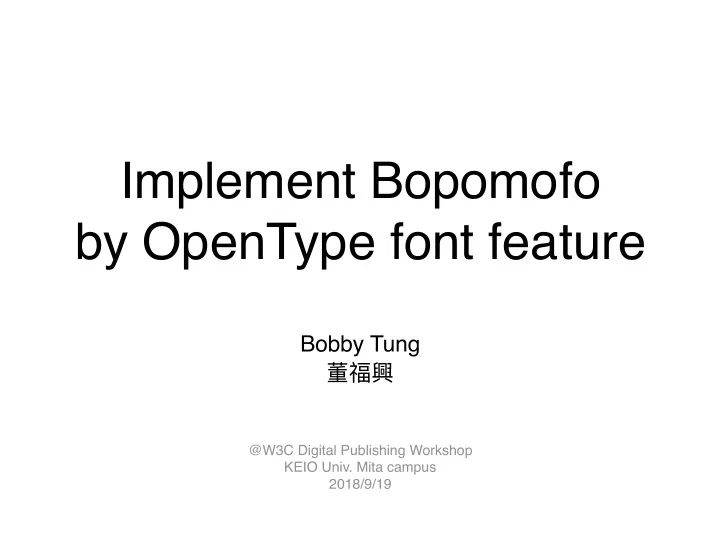
Implement Bopomofo by OpenType font feature
Bobby Tung 董福興
@W3C Digital Publishing Workshop KEIO Univ. Mita campus 2018/9/19
What is Bopomofo?
• A phonetic system for Mandarin education in Taiwan.
• Major input method for Han characters. →
Layout Rules for Bopomofo
• Bopomofo Ruby - implement and requirement
W3C ebooks and i18n workshop 2013/6/4
• "The Manual of The Phonetic Symbols
• f Mandarin Chinese"
Ministry of Education, Taiwan
HTML Markup
Light tone
<ruby>過<rt>˙ㄍㄨㄛ</rt></ruby>
2nd, 3rd, 4th tone marks <ruby>醒<rt>ㄒㄧㄥˇ</rt></ruby>
Tabular ruby markup model(Only support by Firefox)
<ruby><rb>你<rb>好<rb>嗎<rt>ㄋㄧˇ<rt>ㄏㄠˇ<rt>˙ㄇㄚ</ruby>
→ HTML Ruby Markup Extensions
CSS Ruby Layout Module
ruby-position: inter-character; is support by Webkit.
Glyph issue
˙
U+02D9 DOT ABOVE
ˊ
U+02CA MODIFIER LETTER ACUTE ACCENT
ˇ
U+02C7 CARON
ˋ
U+02CB MODIFIER LETTER GRAVE ACCENT
Source Han Sans Helvetica Source Han Sans traditional Chinese build fixed the glyphs of tone marks
Last step: position of tone marks
Tone marks' position when Bopomofo placed on the top It's ok but not readable for readers
Last step: position of tone marks
Tone marks' position when Bopomofo placed on the right side
2nd, 3rd, 4th tone marks should be placed to right side
OpenType feature?
• Which OpenType feature should we use?
• Should we apply for new feature?
• Do browsers support those features?
Take a try!
Hard to imply with Layout
• Engine. Try font feature
What OpenType features should be used? Do browsers support those "never-used" features? Let's make a sample font for a try! (thanks @buttaiwan) Browser's bug confirmed harfbuzz OpenType engine bug fixed. Now works on Firefox, Chrome and LibreOffice. Ask expert for advice.
`vkrn` `vert`
Almost done
Bopomofo for Dialect
• The requirement is raised by
WikiMedia Community in Taiwan.
• The font solution fully support it.
• We sent a proposal to ISO/IEC
JTC1 SC2/WG2 to add a missed tone mark and replace sample glyphs for Bopomofo block.
Font specification
• For horizontal writing, Light Tone is a middle dot in proper width
• 2nd, 3rd, 4th tone marks use `ruby` to adjust height.
• For vertical writing, Light Tone use `vert` to replace glyph.
• 2nd, 3rd, 4th tone marks use `vert` and `ruby` to replace glyphs to
combining characters then adjust the position.
• For full specification, see repo:
ˊ U+02CA ́ U+0301 ˇ U+02C7 ̌ U+030C ˋ U+02CB ̀ U+0300
Conclusion
• Font issues are outside W3C
• Should we have a font community group?
• Could we solve other CJK issue in same way?
i.e. Japanese Kanbun(漢煮⽂斈).
• How to published the solution in standardization
way? (an i18n note?)